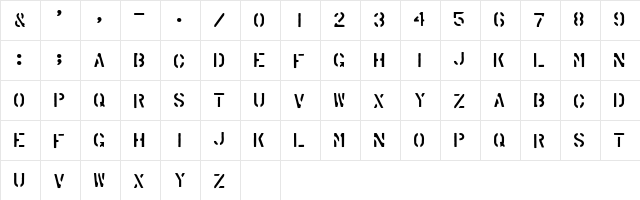
Marsh Regular
Design Context for Marsh Typeface
Marsh is a composed and adaptable typeface that performs quietly and consistently across a wide range of design contexts.
Pro Tip: Use Marsh in both headline and body roles to test its range before committing to a single application.